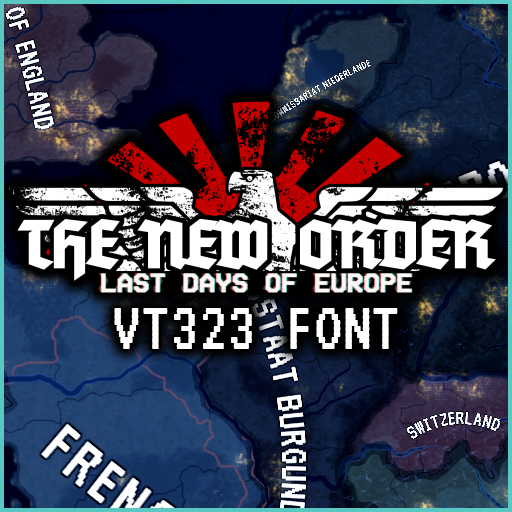
The New Order: VT323 Map and Cities Font (OLD)
Have you ever wanted to give Hearts of Iron IV's map a more DOS-like flair, without changing the User Interface as a whole? Then this mod is for you.
This mod replaces the font used by country and city names with the DOS-like VT323 font, seen previously in the first two demos of The New Order: Last Days of Europe. Unlike them, the VT323 font ** does not appear in other UI elements **, meaning you can enjoy looking at focuses and decision categories without getting eye strain.
In terms of flair, it fits best with TNO, although there's nothing whatsoever stopping you from using it in any other scenarios.